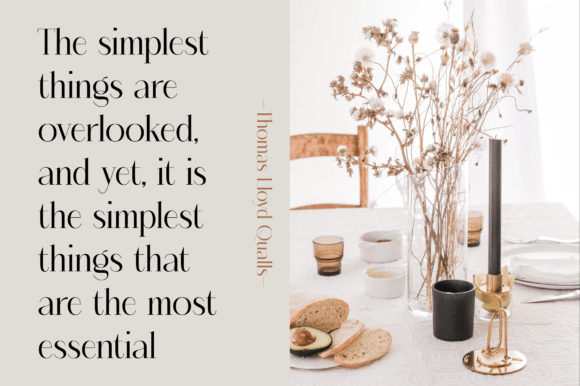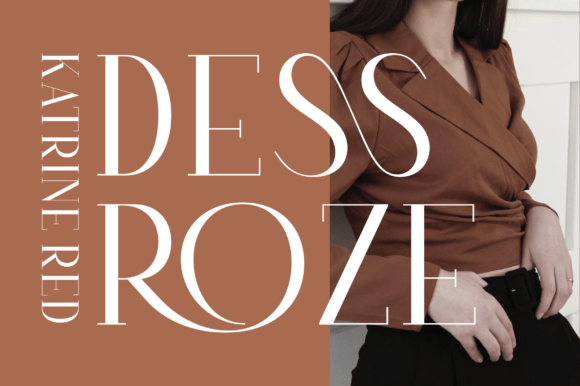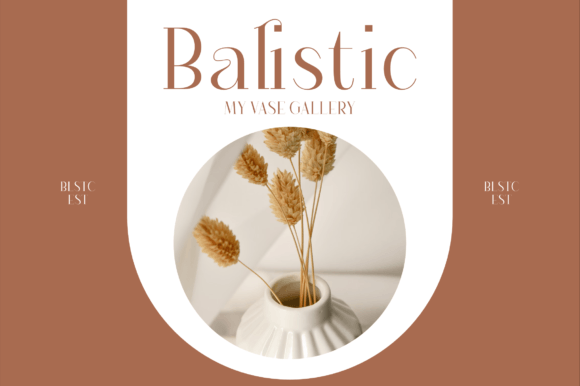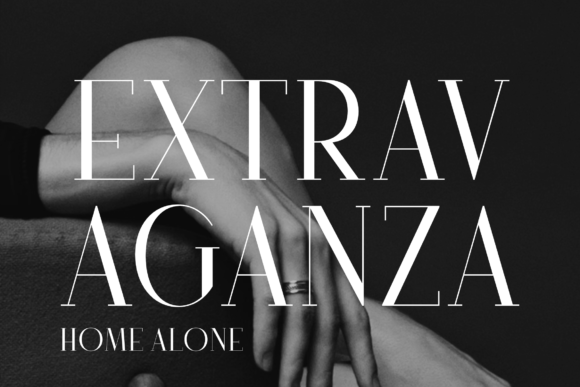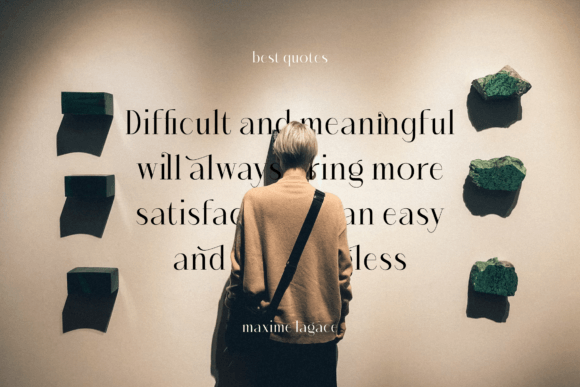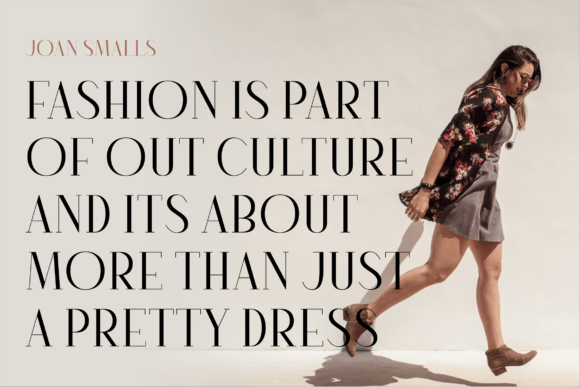
Introducing Dagilian Font: Elevate Your Designs with Elegance and Sophistication
As a designer, I’ve had my fair share of moments where finding the perfect font felt like searching for a needle in a haystack. I recall working on a luxury brand project, determined to create a logo that exuded elegance and sophistication. That’s when I stumbled upon Dagilian Typeface, a serif modern and classic font that instantly captured my attention. In this article, I’ll share my experience with Dagilian Font, its unique features, and how to make the most of it in your designs.
A Personal Review: What I Love About Dagilian Font
Here’s what makes Dagilian Font stand out:
- ✨ Unique Style: Dagilian Font boasts a distinct modern look that sets it apart from other serif fonts.
- ✅ Elegant and Luxurious: Its classic design makes it perfect for high-end branding, luxury logos, and sophisticated designs.
- 💡 Versatile: Use it for book or movie titles, fashion brands, magazines, clothing, lettering, quotes, and more.
While Dagilian Font is exceptional, there are a few minor considerations:
- 🤔 Legibility at Small Sizes: Like many serif fonts, Dagilian may require adjustments for optimal readability at very small font sizes.
The Story Behind Dagilian Font
While the actual origins of Dagilian Font might be shrouded in mystery, it’s easy to imagine a designer driven by a passion for typography and elegance. Picture a creative individual, inspired by classic serif fonts, yet determined to craft something uniquely modern and stylish. This blend of old and new results in a font that’s both timeless and cutting-edge.
| What makes Dagilian Font suitable for luxury brands? | Its classic serif design, combined with a modern look, gives it an elegant and sophisticated feel, perfect for high-end branding. |
| Can I use Dagilian Font for body text? | While Dagilian excels in titles and headings, its legibility at smaller sizes might vary. It’s best used for larger text elements like headings and titles. |
| Is Dagilian Font available in different weights? | Yes, Dagilian Font comes in multiple weights, allowing for greater flexibility in your designs. |
Dagilian Font is a versatile and elegant typeface that can elevate your designs to new heights. With its unique blend of classic and modern elements, it’s perfect for a wide range of applications, from luxury branding to editorial design. Experiment with its OpenType features, explore its glyphs, and discover the endless possibilities Dagilian Font has to offer.